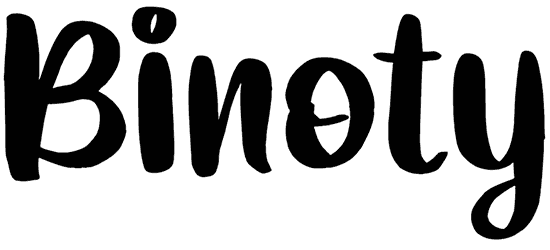
Binoty Font
The Binotys’ characters are carefully crafted to convey their own special characteristic, including personalization, tenderness, and vivacity. This masterpiece comes with crooked and curved letters; thus, it would be utilized in digital brochures, menus, social media posts, or book covers. We have gathered a huge collection of various fonts in our archive. Visit the RB library for your own convenience.